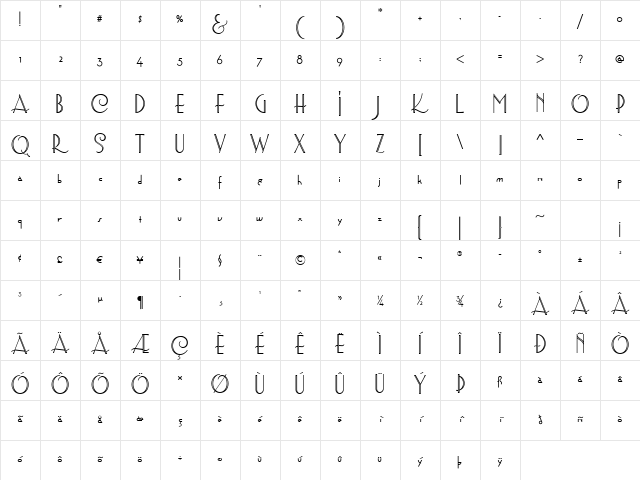
AstoriaTitling Medium Free Font
AstoriaTitling Medium
Complete AstoriaTitling Medium glyph index. Displaying only characters natively supported by AstoriaTitling Medium font.
Design Context for AstoriaTitling
AstoriaTitling is a composed and adaptable typeface that performs quietly and consistently across a wide range of design contexts.